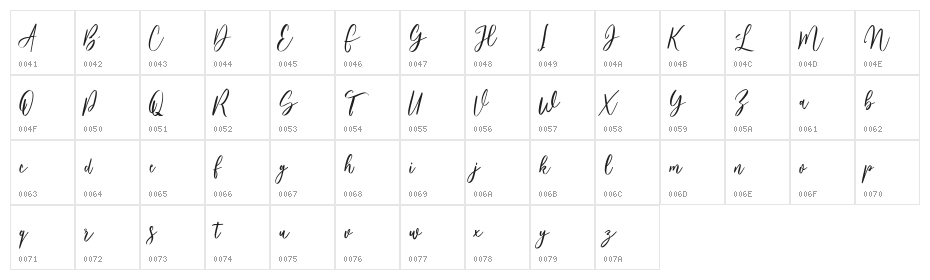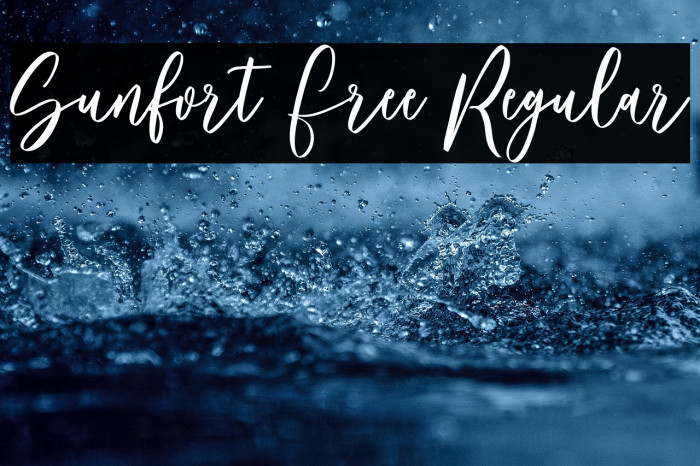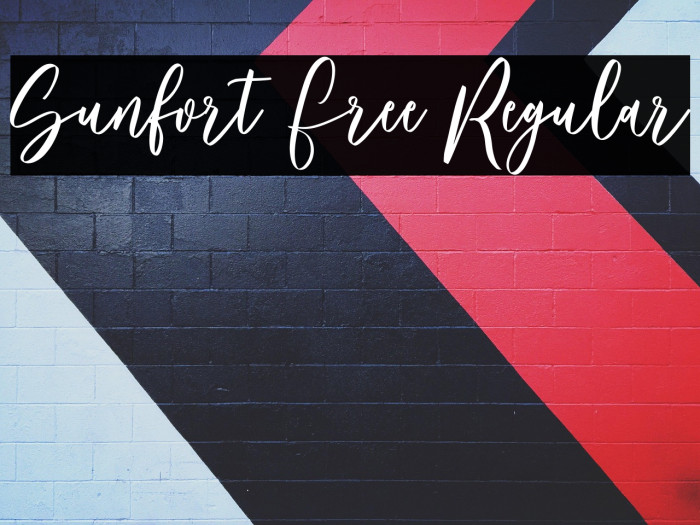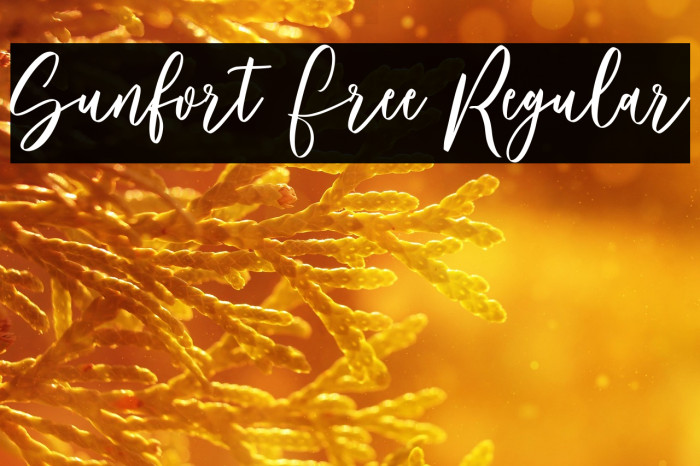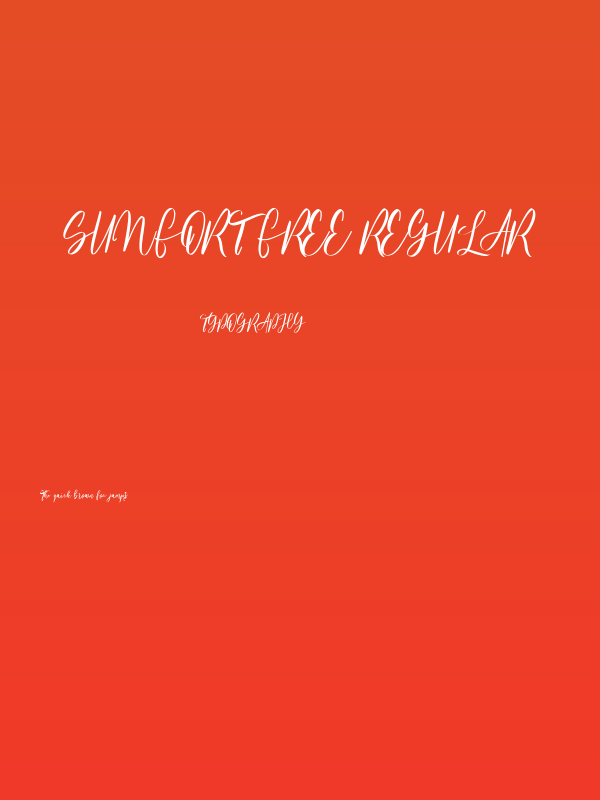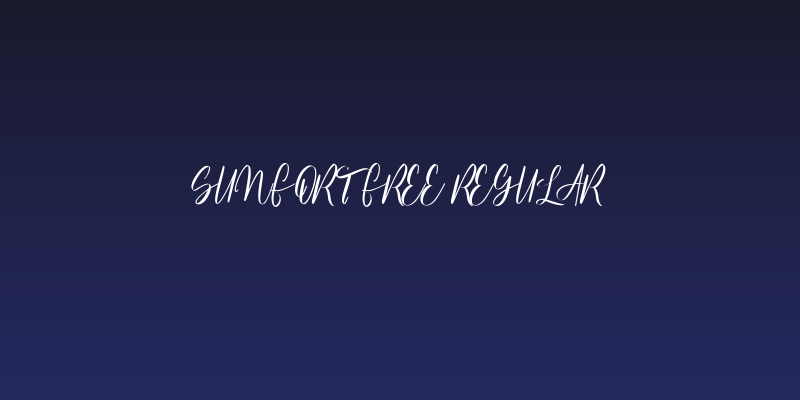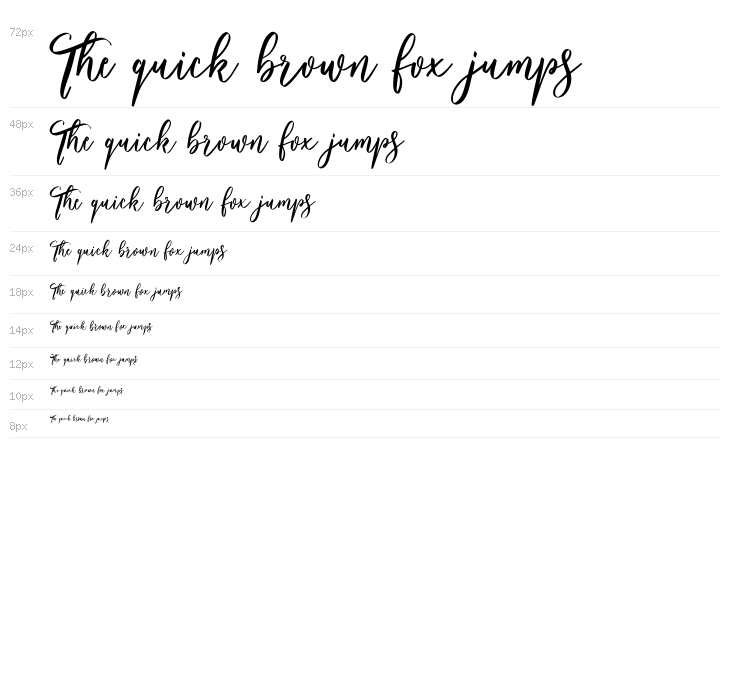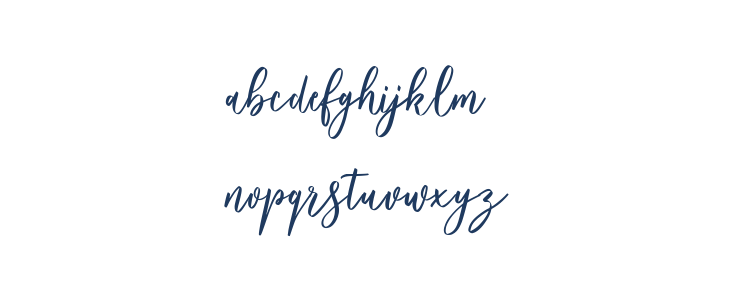
Sunfort Free Regular Font
Sunfort Free Regular Description
This font exudes a modern, elegant script style with a flowing, handwritten appearance. The characters are connected, giving it a smooth and continuous look, which is characteristic of cursive fonts. The strokes are moderately thick, providing a balanced contrast that enhances readability while maintaining a stylish flair. The uppercase letters are particularly ornate, with exaggerated loops and swashes that add a decorative touch. The lowercase letters are more restrained but still maintain the fluidity and grace of the script. This font is versatile, suitable for both formal and informal settings, and can be used to add a personal, artistic touch to various design projects.
| Proposed Projects | Ideal for wedding invitations, greeting cards, branding, and logo design, where a personal and artistic touch is desired. |